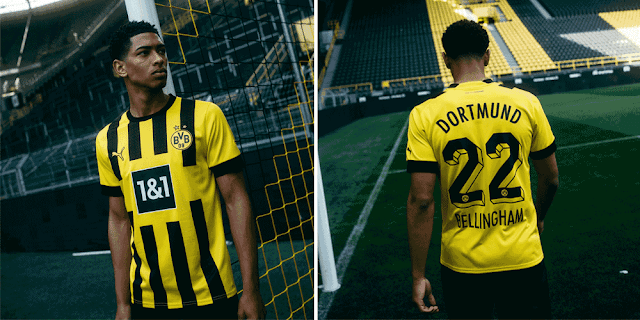
Dortmund Home Kit 22-23 was released on May 13. Then a new set of fonts will be used, and the numbers will have a three-dimensional effect.
| Dortmund BELLINGHAM 22 Home Kit |